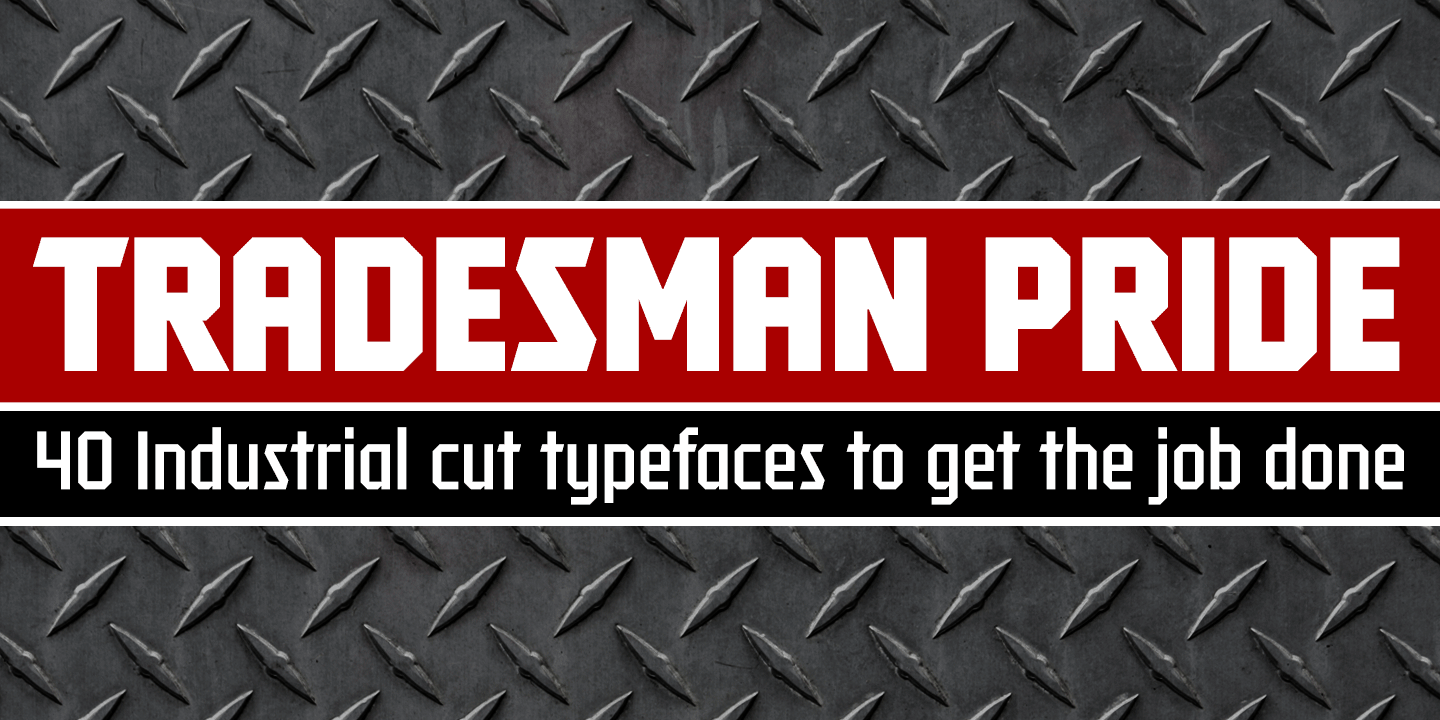
The Tradesman Font Free Download is a bold, industrial-inspired typeface perfect for construction branding, handyman services, tool logos, workshop signage, and rugged advertising campaigns. Its strong, blocky letters convey reliability and strength.
What makes the Tradesman Font so exciting is its no-nonsense, sturdy design that instantly communicates professionalism and trustworthiness. This font is ideal for projects that require a solid, dependable appearance.
The Tradesman Font family includes Regular and Bold styles, giving designers the flexibility to create impactful and authoritative typography.